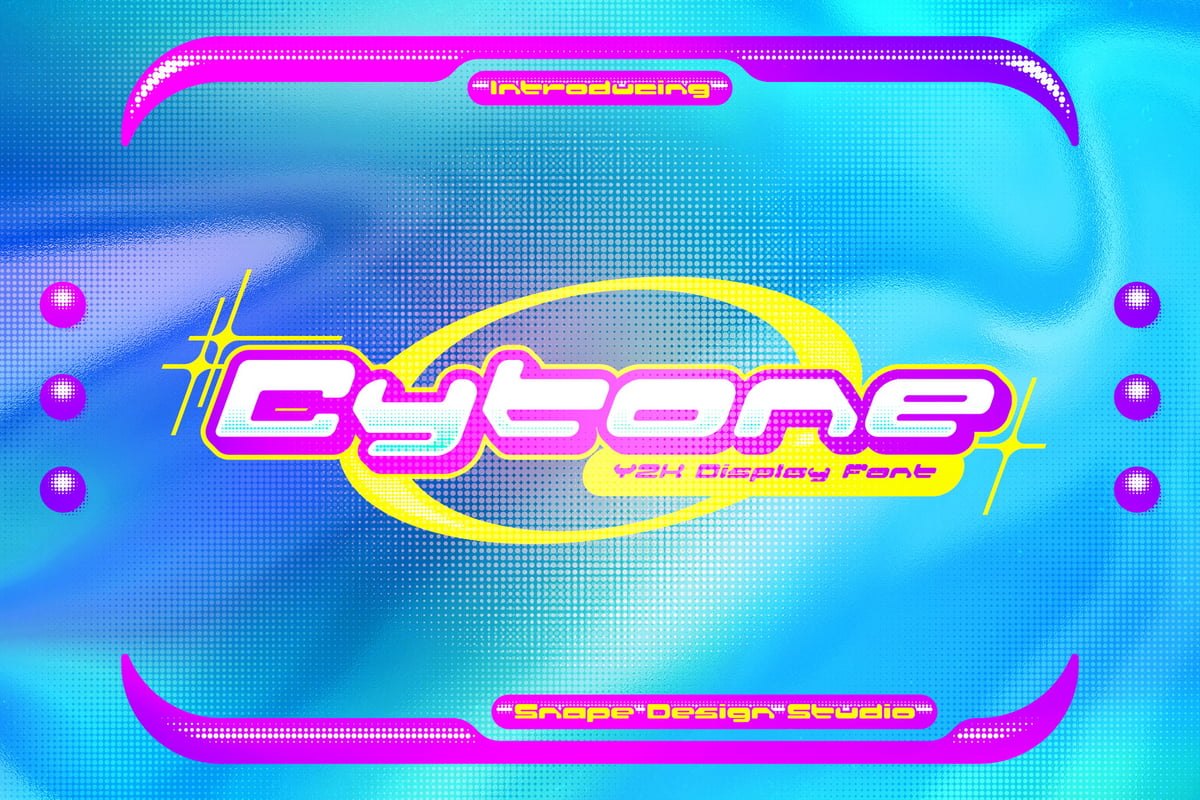
Cytone - Y2K Font
Transport your designs to the digital millennium with this bold Y2K-inspired futuristic font. Cytone draws heavy influence from the iconic Y2K design era, channeling the aesthetic of early 2000s music and pop culture. This striking typeface perfectly captures the essence of technology, digital interfaces, and space galaxy themes that defined the millennium era. This versatile font excels across multiple creative applications: Movie titles and film projects Documentary and video content Logo desi...